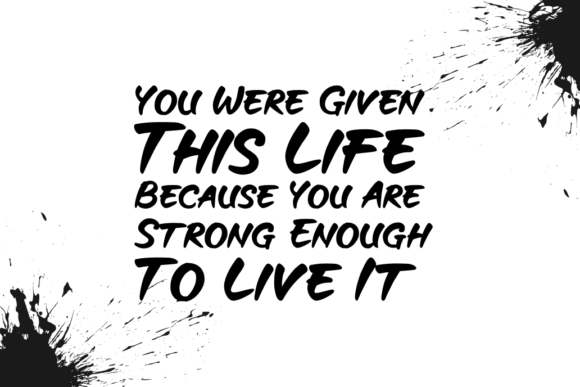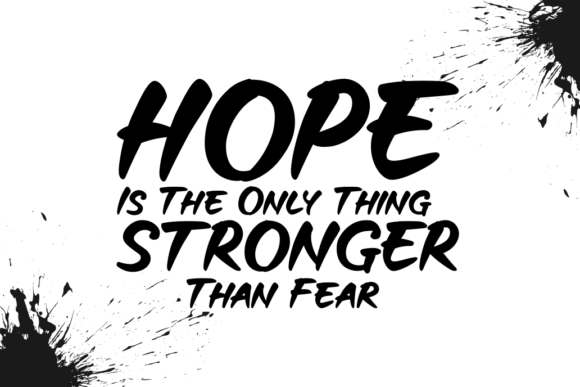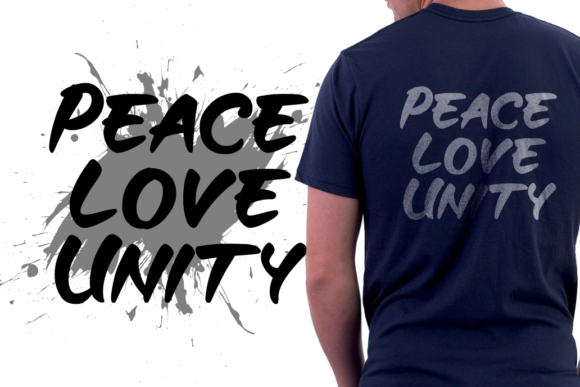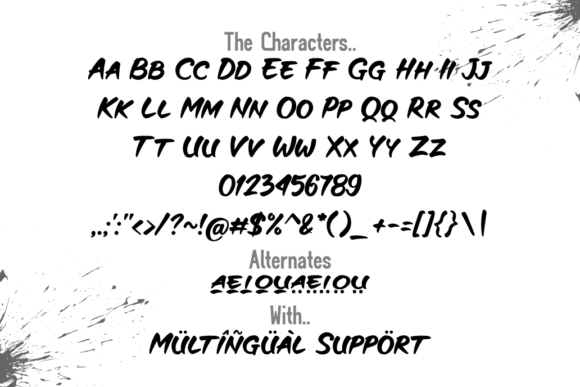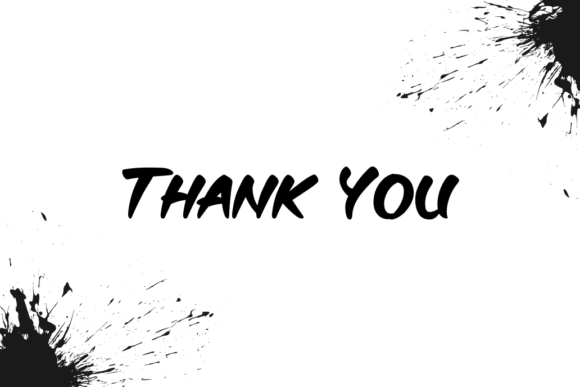
Aullya Gedabrush Font: The Ultimate Display Font for Bold Designs
In the world of typography, fonts play a crucial role in conveying the tone and personality of a design. For designers and crafters looking for a font that exudes strength, toughness, and beauty, Aullya Gedabrush is an excellent choice. This display font, based on brush strokes, is designed to make a statement with its thick and solid strokes that give a strong and tough impression, while also feeling beautiful.
The Unique Characteristics of Aullya Gedabrush
Aullya Gedabrush is a one-of-a-kind font that stands out from the rest due to its unique brush stroke design. The thick and solid strokes of this font give it a rugged and bold appearance, making it perfect for designs that require a strong and tough impression. At the same time, the font also has a beautiful and elegant feel to it, making it suitable for a wide range of design applications.
Perfect for Designs that Require a Strong Impression
As a display font, Aullya Gedabrush is specifically designed to grab attention and make a statement. Its bold and rugged appearance makes it perfect for designs that require a strong and tough impression, such as:
- Logos and branding designs
- Headings and titles
Whether you’re designing a logo for a sports brand or creating a poster for a music festival, Aullya Gedabrush is the perfect font to use.
One of the best things about Aullya Gedabrush is that it’s PUA (Private Use Area) encoded, which means that you can access all of the amazing glyphs and ligatures with ease. This font is designed to provide a wide range of characters and symbols that can be used to add a creative touch to your designs.
With Aullya Gedabrush, you can easily access:
- Glyphs: alternative characters and symbols that can be used to add variety to your designs
- Ligatures: special character combinations that create a unique and creative effect
This means that you can experiment with different characters and symbols to create a unique and personalized design that stands out from the rest.
Why Designers and Crafters Love Aullya Gedabrush
Aullya Gedabrush has quickly become a favorite among designers and crafters due to its unique characteristics and versatility. Here are some reasons why:
- High-quality design: The font is designed with high-quality brush strokes that give it a unique and creative appearance.
- Versatile: Aullya Gedabrush can be used for a wide range of design applications, from logos and branding to posters and flyers.
In conclusion, Aullya Gedabrush is an exceptional display font that’s perfect for designers and crafters looking for a bold and creative way to express themselves. With its unique brush stroke design, PUA encoding, and versatility, this font is sure to take your designs to the next level. Whether you’re creating a logo, poster, or heading, Aullya Gedabrush is the perfect choice for adding a strong, tough, and beautiful touch to your designs.